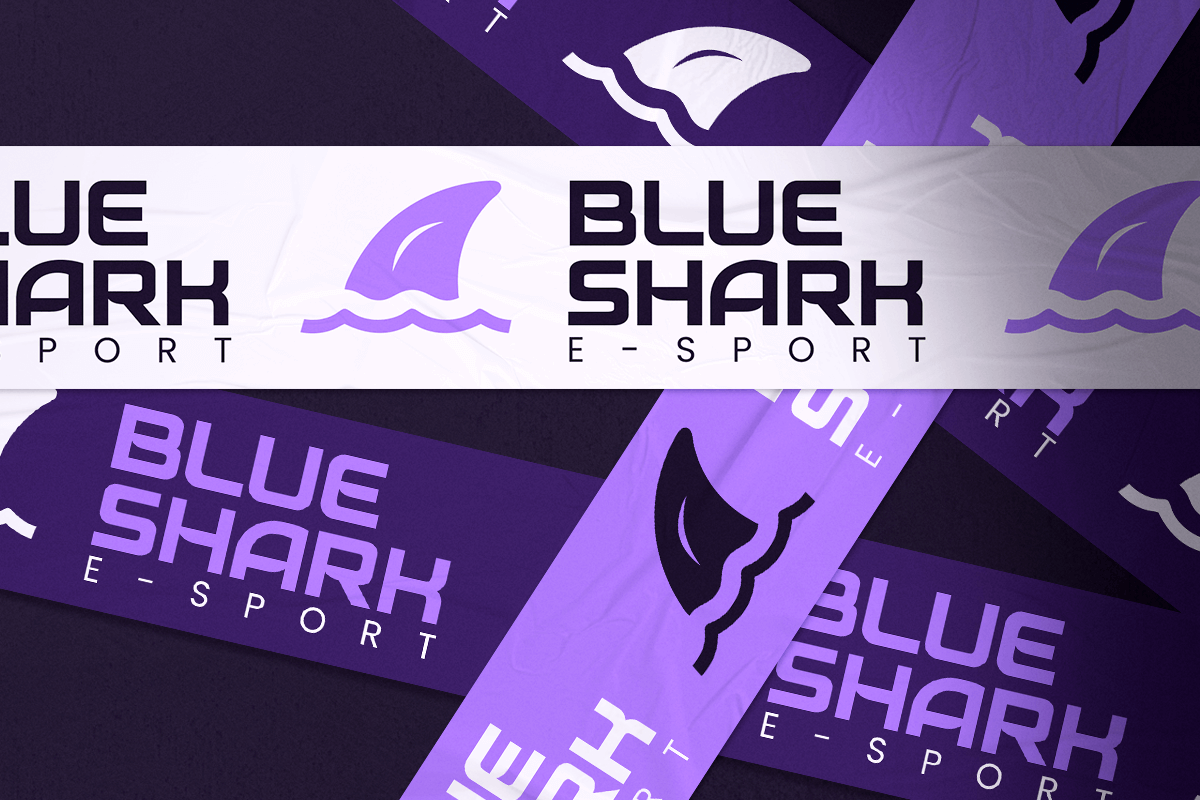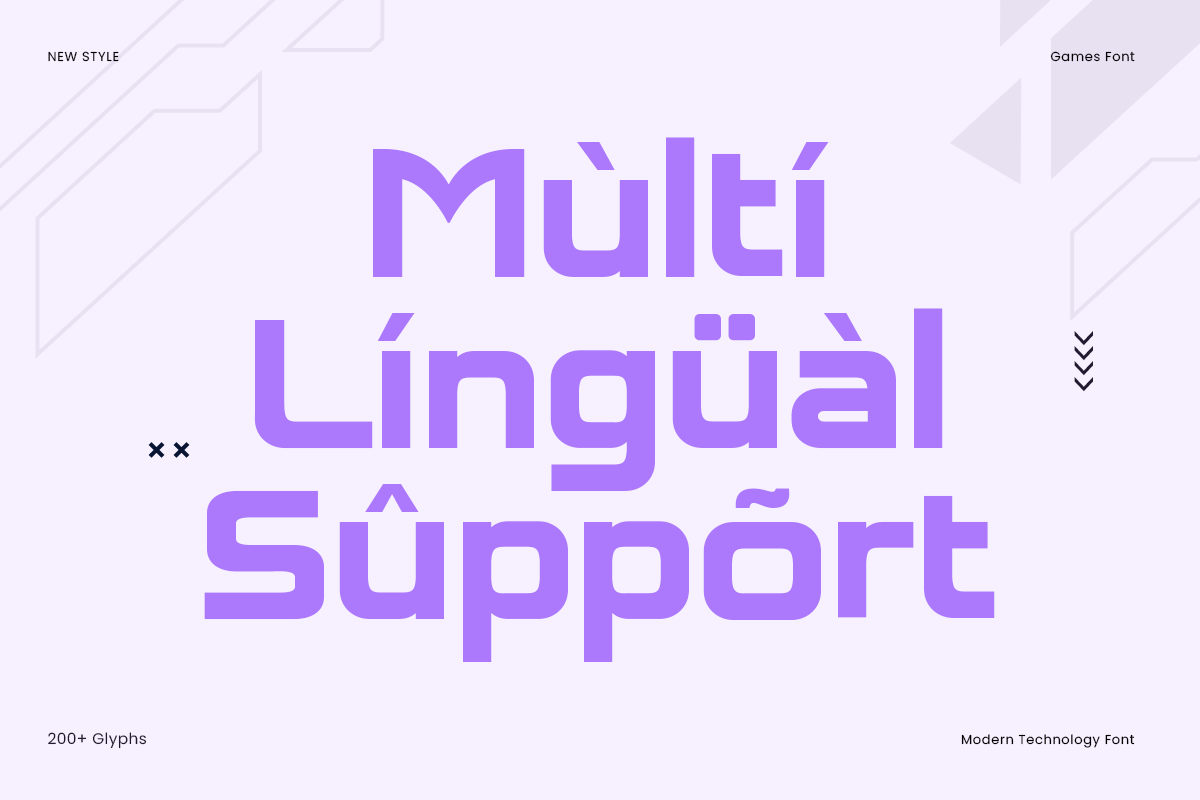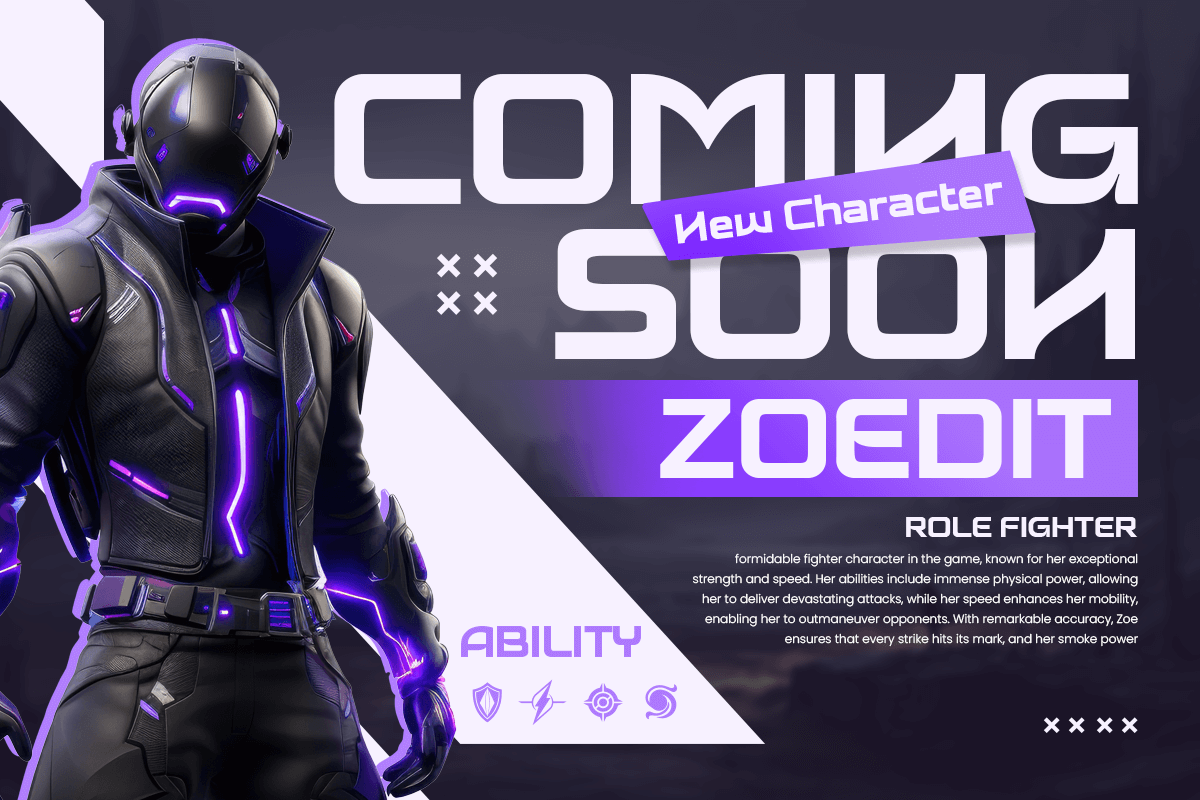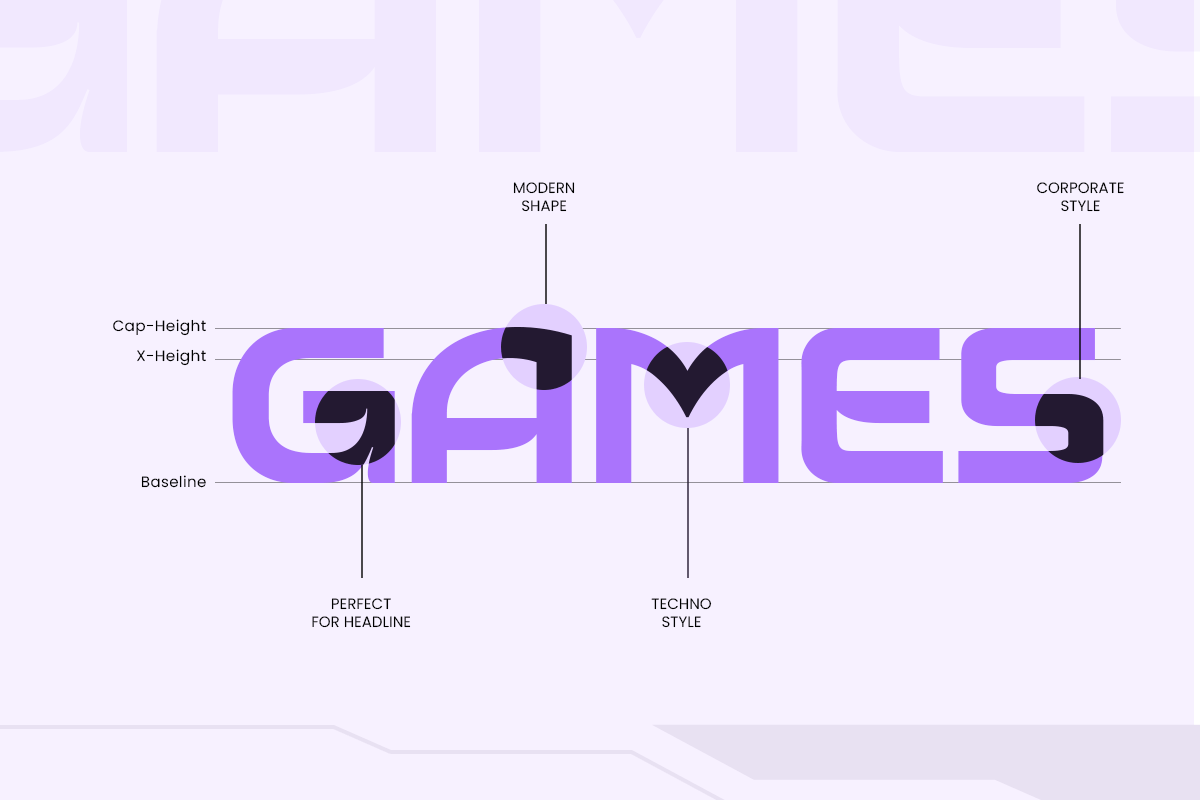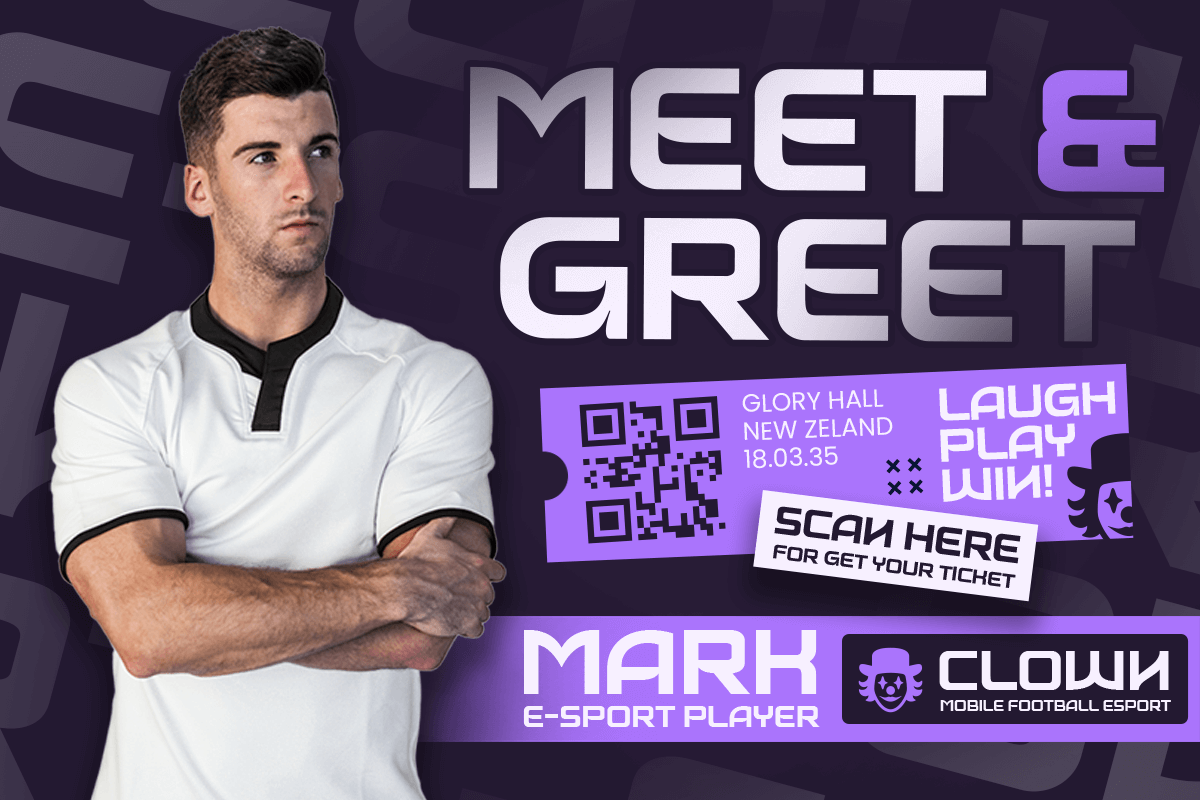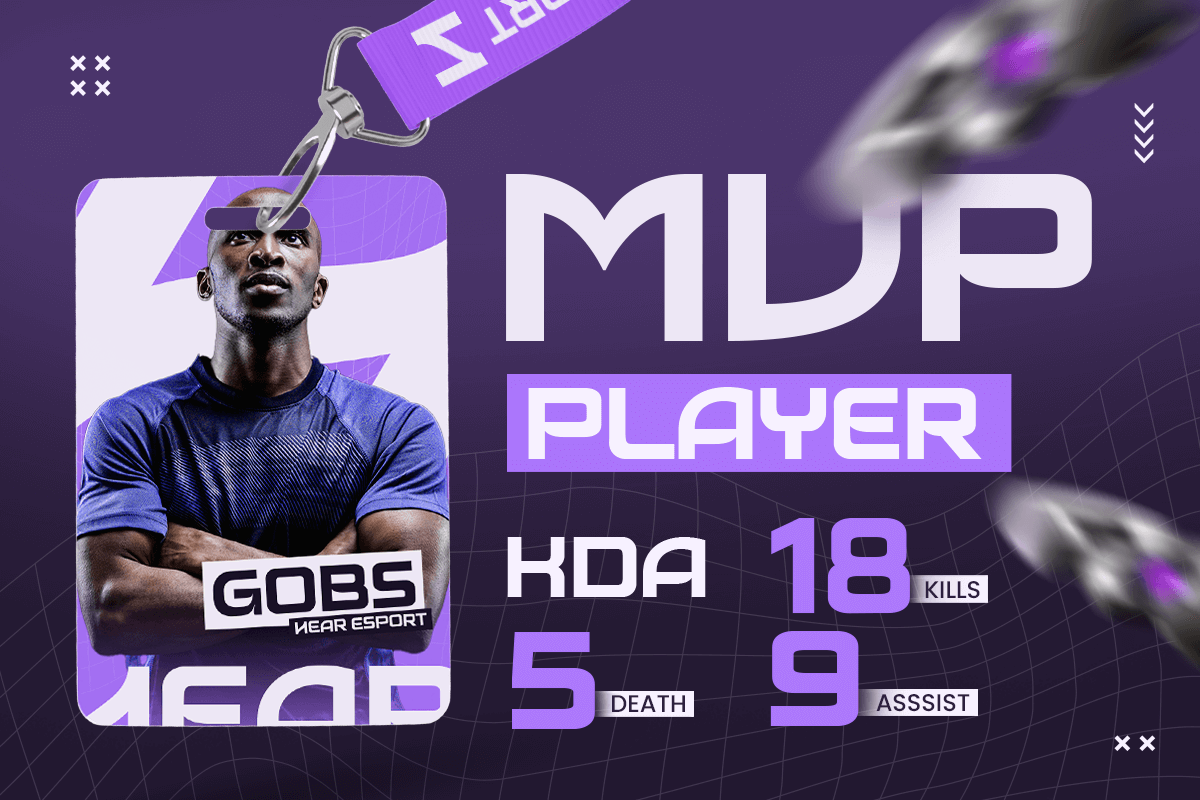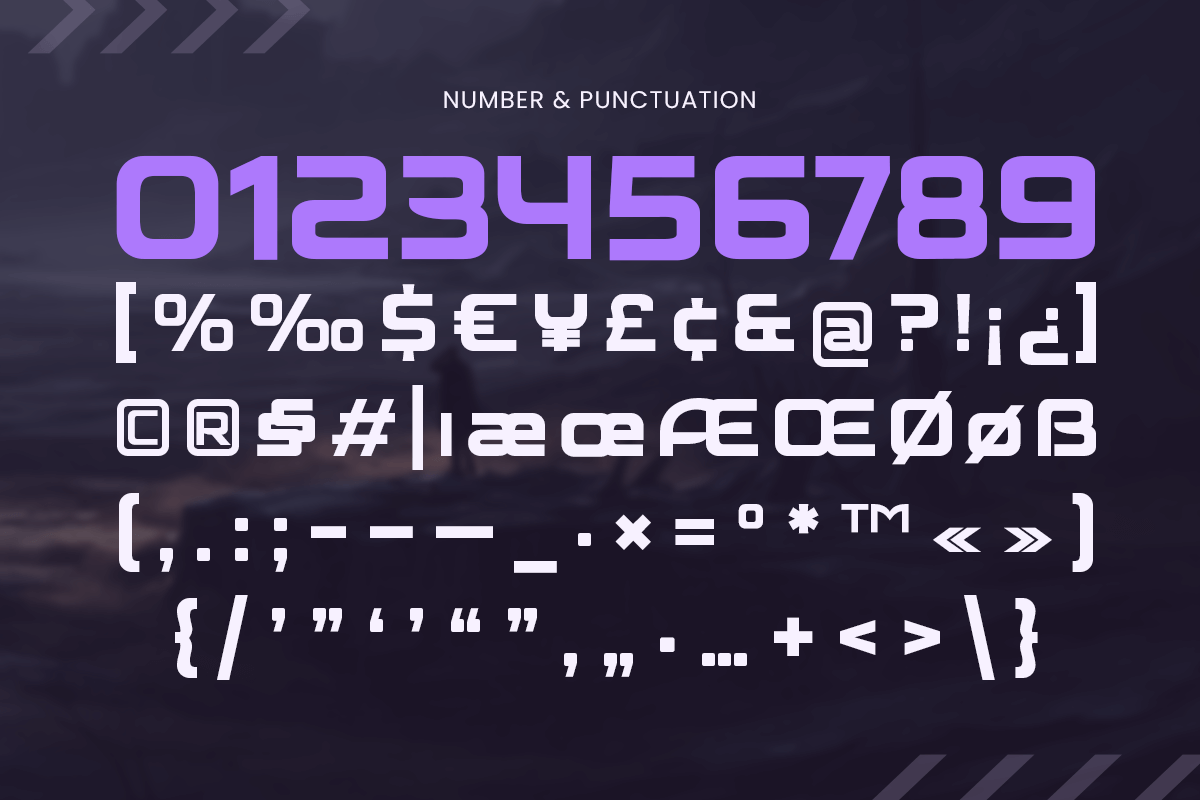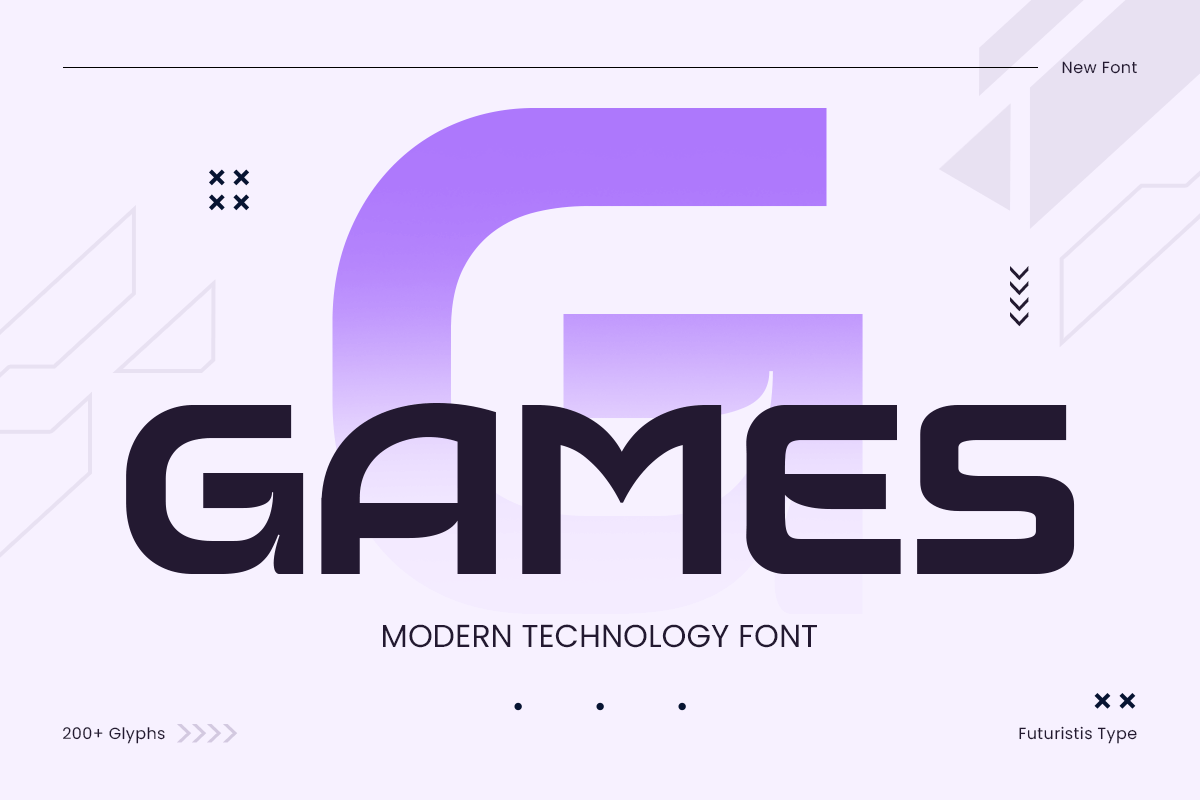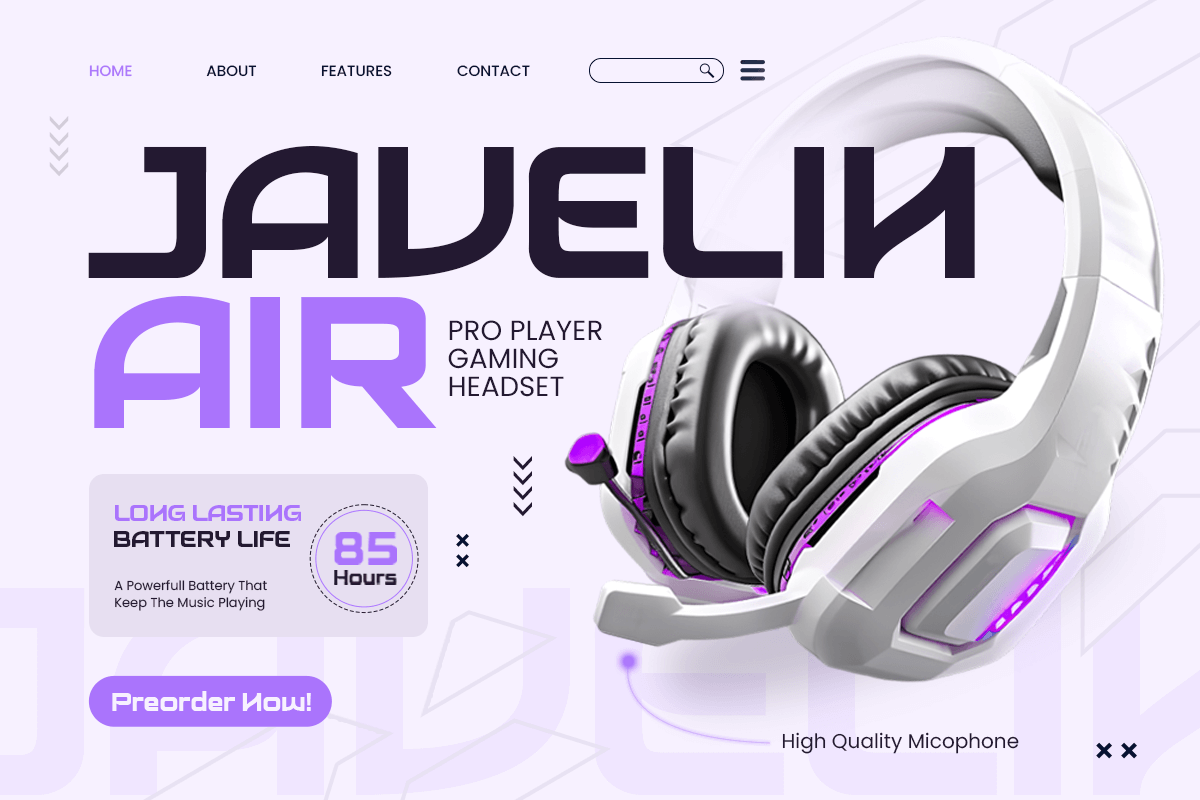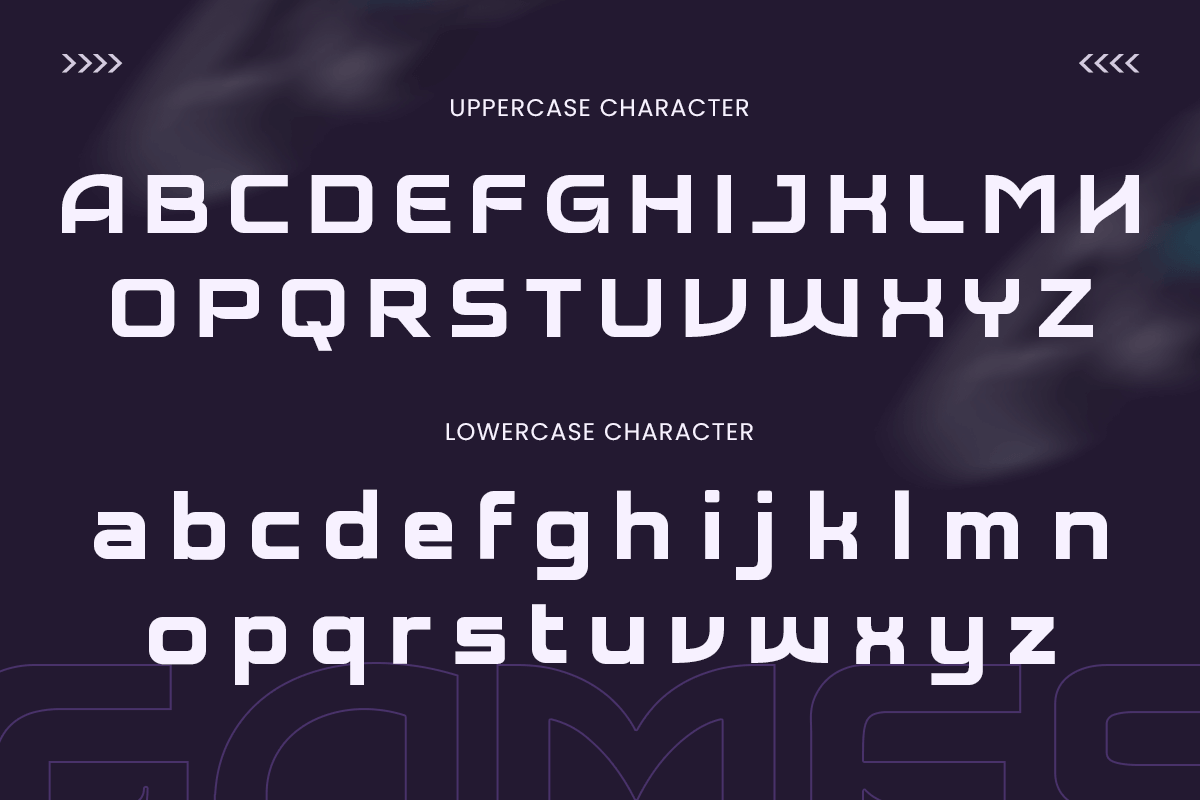
Games - Modern Technology Font
GAMES is a modern technology font designed to bring a bold, futuristic aesthetic to your creative projects. With its sleek geometric shapes and innovative letterforms, GAMES is ideal for tech startups, gaming titles, esports branding, and cutting-edge digital platforms. Whether you’re creating a futuristic logo, building digital interfaces, or designing a modern poster, GAMES delivers clarity, style, and impact. Its versatile structure works seamlessly across print and screen, making it the perfect choice for forward-thinking design.
GAMES – Modern Technology Font Features
* Sleek, futuristic letterforms with a modern digital style
* Perfect for logos, gaming, branding, and high-tech designs
* Includes uppercase, lowercase, numerals, and punctuation
* Professional, clean look for versatile use
* OpenType features for advanced typographic flexibility
Upgrade your design game with GAMES – the ultimate font for modern technology and futuristic branding.